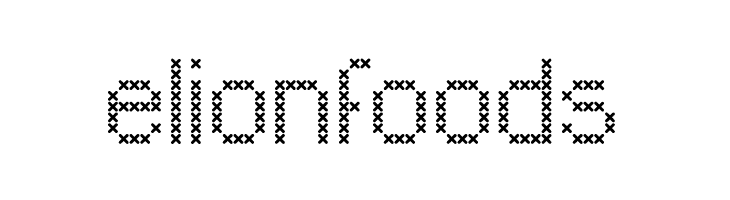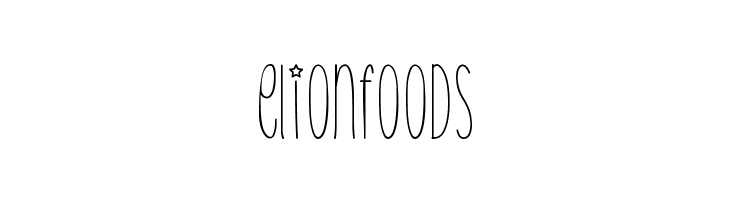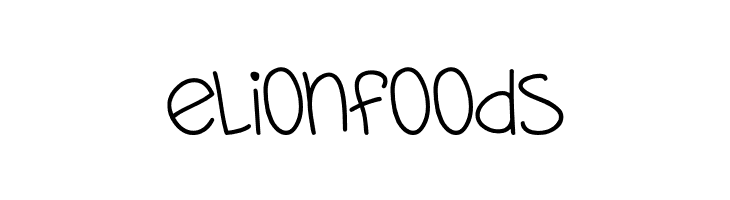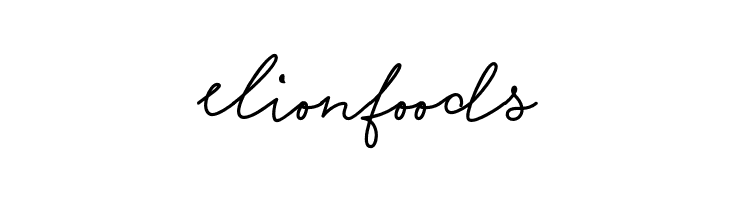
A whimsical collection of hand-drawn Christmas-themed doodles.
A bold, festive font with a snowy, decorative style.
A whimsical, flowing script font with festive charm.
A decorative font with a cross-stitch pattern, ideal for crafty designs.
A whimsical, hand-drawn font with tall, narrow characters and festive star accents.
A playful, hand-drawn font with a festive and cheerful vibe.
A festive, snowflake-patterned font with bold, decorative characters.
A playful, snow-capped decorative font perfect for festive designs.
A festive script font with Christmas tree motifs on uppercase letters and numbers.
A bold, playful script font with a festive and dynamic style.